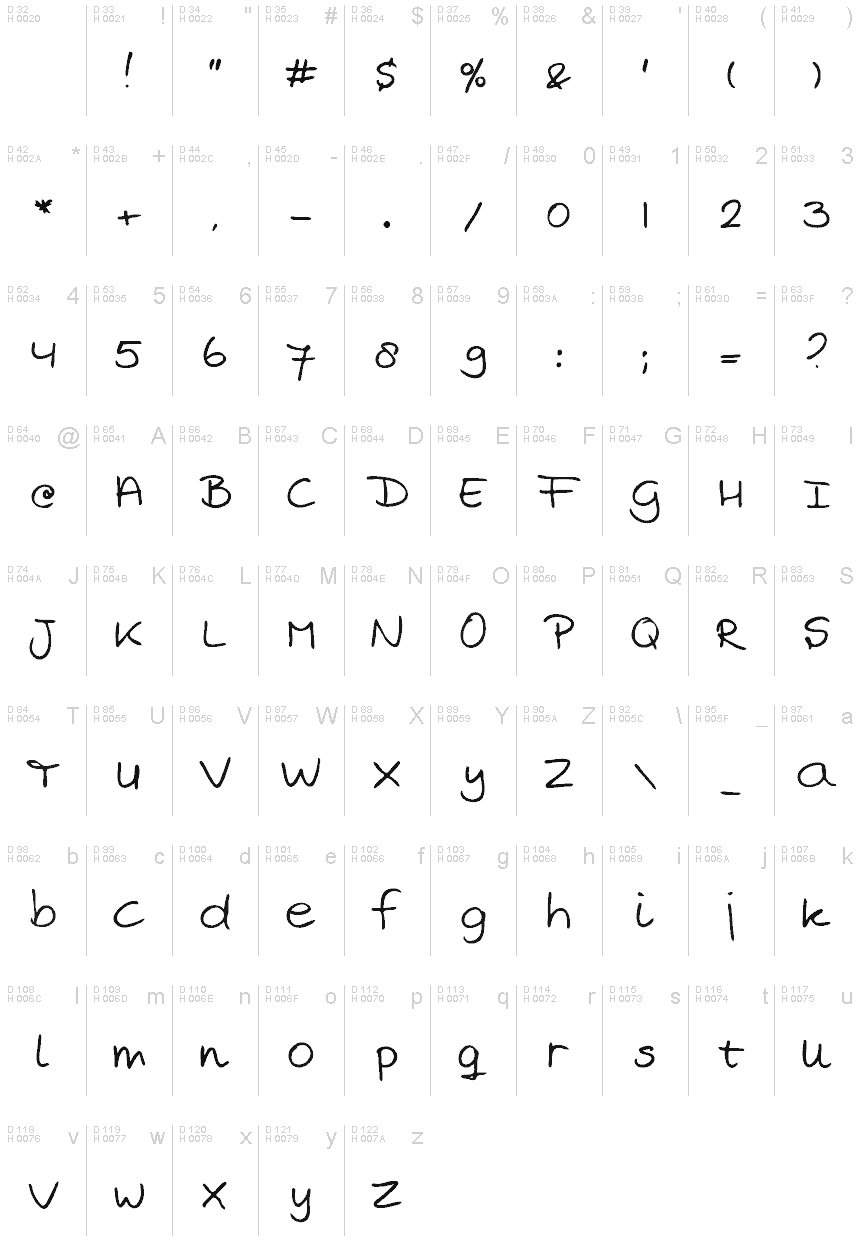
Marjan's handwriting
Marjan's Handwriting is a captivating font that exudes a warm, personal touch. The irregular strokes and varying line widths create a delightfully expressive, hand-drawn appearance, evoking a sense of authenticity and individuality. This font's expanded width lends it a distinctive flair, making it an excellent choice for headlines, branding, and editorial designs that seek to convey a sense of artisanal craftsmanship.
Marjan's Handwriting is versatile, equally suited for modern, minimalist layouts as well as more ornate, vintage-inspired compositions. Its organic, imperfect charm can add a touch of human character to digital interfaces, packaging, and promotional materials, making it an invaluable asset for designers seeking to create a genuine, relatable aesthetic.